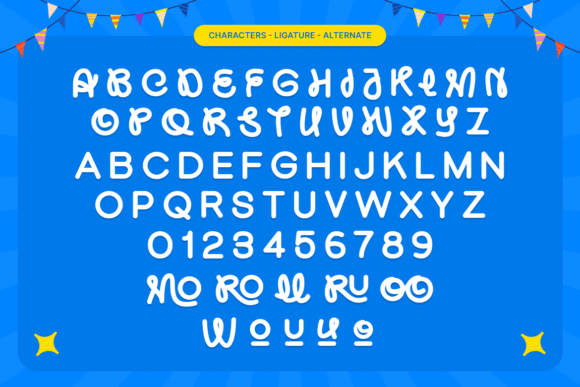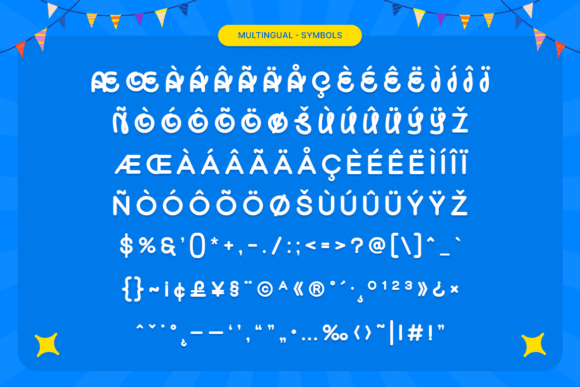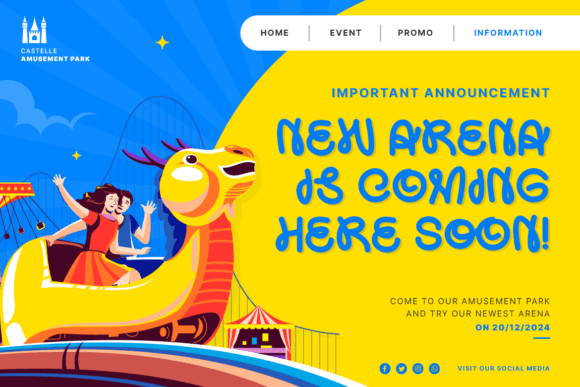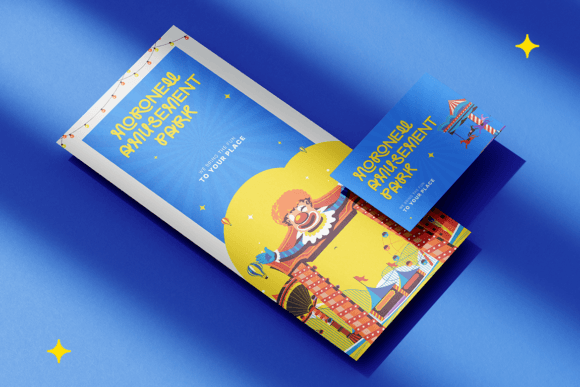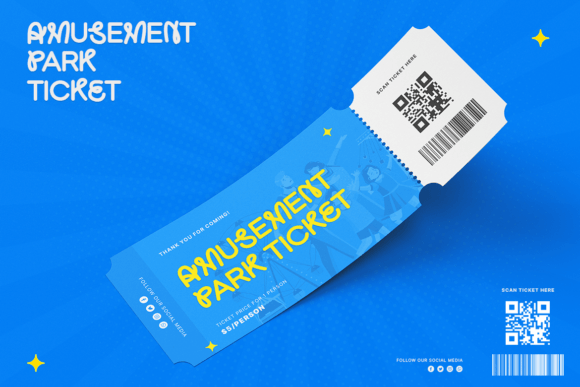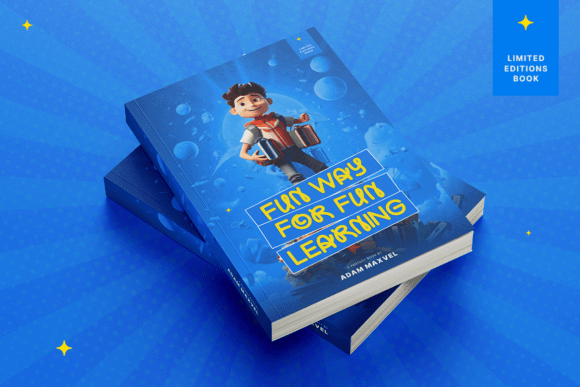
Introduction to Rollienk Font
Have you ever been working on a creative project and suddenly, the perfect font pops into your mind? For designers, this moment is like a breath of fresh air, elevating our ideas from mere concepts to breathtaking realities. And that’s exactly what happens when you discover the enchanting Rollienk Font. Its whimsical charm and soft, rounded contours instantly transport you to a world of wonder and delight.
As a valuable design resource, Rollienk Font is a high-quality addition to any creative arsenal. Its unique letterforms and transparent background make it effortlessly adaptable to both digital and print mediums, allowing designers to craft engaging headlines, sprightly graphics, and captivating branding elements with ease.
Whether you’re working on a free download or a paid design project, Rollienk Font is the perfect companion to bring your ideas to life with a loving and fervent tone, guaranteed to resonate with your audience and leave a lasting impression.
Key Features of Rollienk Font
- Features a transparent background, making it perfect for use on images or videos
- Designed with a unique, elegant style that adds a touch of sophistication to any design
- Includes a wide range of characters, including uppercase and lowercase letters, numbers, and punctuation
- Perfect for use in graphic design, digital art, and other creative projects where a high-quality font is essential
Honest Review: Rollienk Font
As a designer, I’m always on the lookout for high-quality design resources to elevate my creative projects. Recently, I stumbled upon the Rollienk Font, and I’m excited to share my honest review with you.
- ✨ High-quality font with a unique and creative feel
- ✨ Offers a transparent background, making it perfect for custom designs
- ⚠️ Limited character set, which may not be suitable for longer texts
- ⚠️ Not as versatile as some other fonts, making it more suitable for specific design styles
Overall, I’m impressed with the Rollienk Font’s unique style and high quality. While it may not be the most versatile font, it’s an excellent addition to any designer’s toolkit. If you’re looking for a creative and eye-catching font for your next project, the Rollienk Font is definitely worth considering.
Tips for Getting the Most Out of Rollienk Font
For a creative project, use Rollienk Font in combination with a high-quality design resource to create a unique and eye-catching visual effect. Experiment with different font sizes, colors, and styles to achieve a transparent background effect.
Rollienk Font is ideal for designing logos, posters, and social media graphics. It’s also a great choice for creating a free download or design resource for personal or commercial use.
Q: Does the Rollienk Font have a transparent background, making it suitable for design projects with complex backgrounds?
Yes, the Rollienk Font features a transparent background, making it ideal for design projects that require precise control over the background elements. This allows designers to easily combine the font with other design elements, such as images or shapes, to create visually appealing and complex compositions.